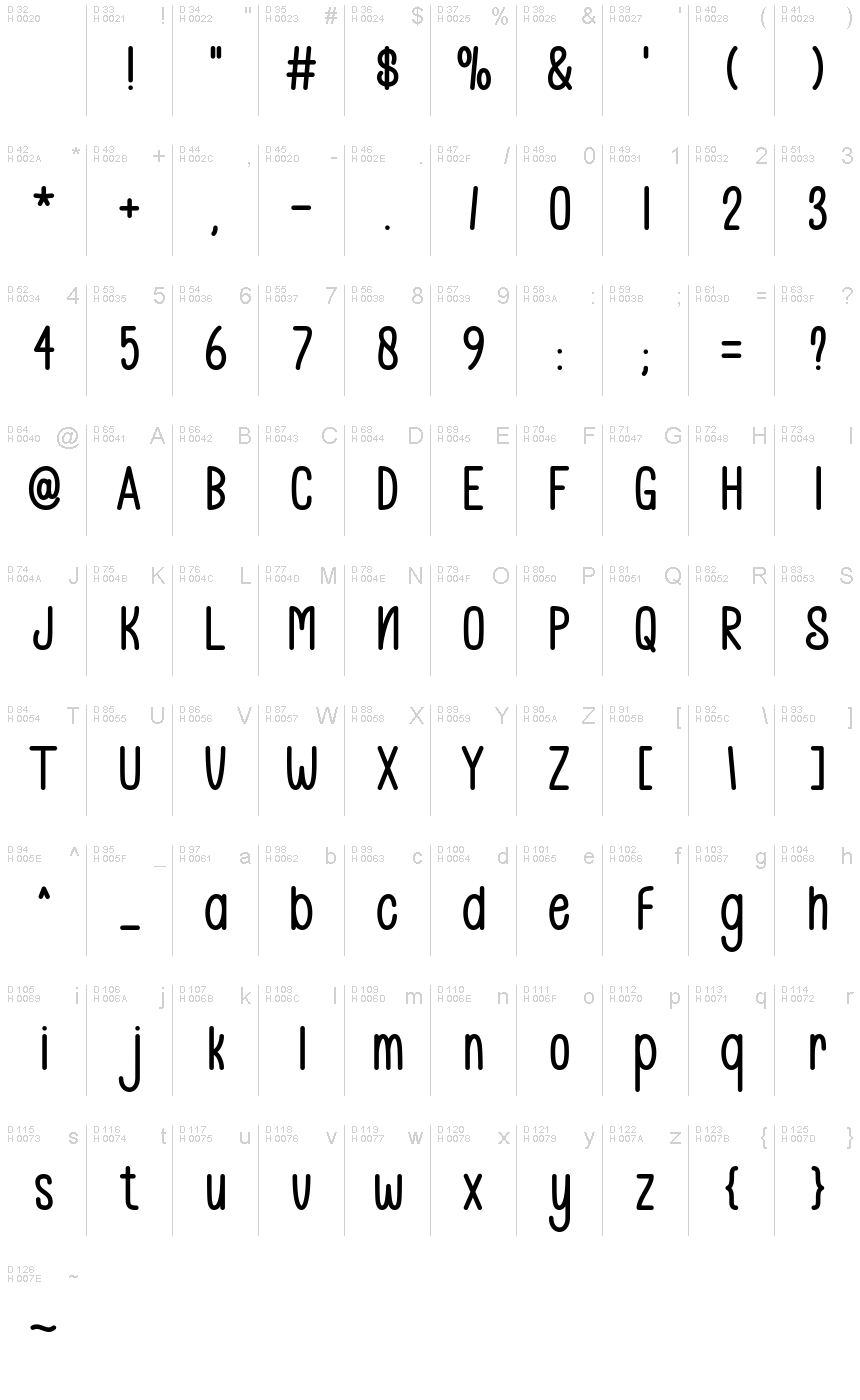
Miracle Gates
Miracle Gates, a captivating handwritten font crafted by Hardiboy Design, exudes a charming, whimsical essence. With its condensed width and organic, fluid strokes, this font evokes a sense of warmth and approachability. The unique character shapes and playful ligatures create a cohesive, harmonious visual presentation, making Miracle Gates a standout choice for projects seeking a touch of artisanal flair.
This versatile font lends itself well to a variety of design applications, from elegant wedding invitations and greeting cards to visually engaging social media content and product packaging. Its condensed nature allows for optimal space utilization, making it a practical selection for typography-driven designs. Whether you're crafting a memorable brand identity or curating an eye-catching editorial layout, the Miracle Gates font by Hardiboy Design offers a delightful and impactful typographic solution.